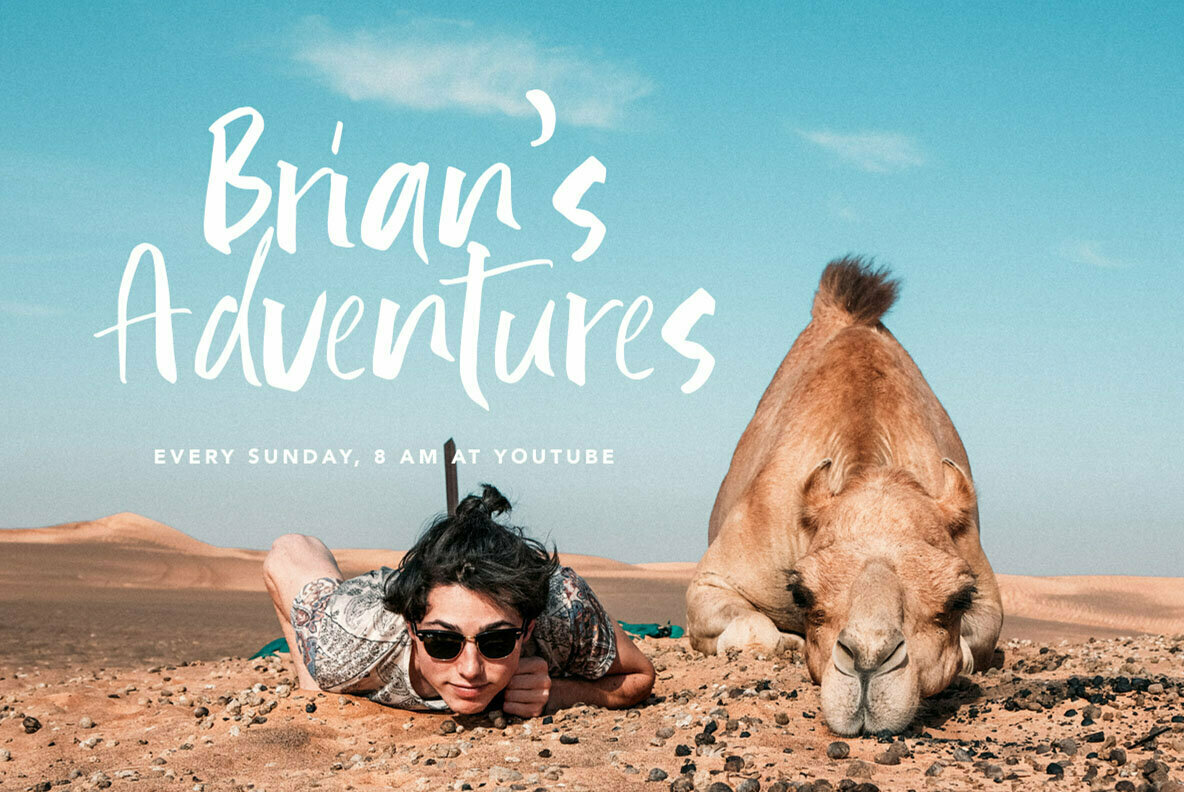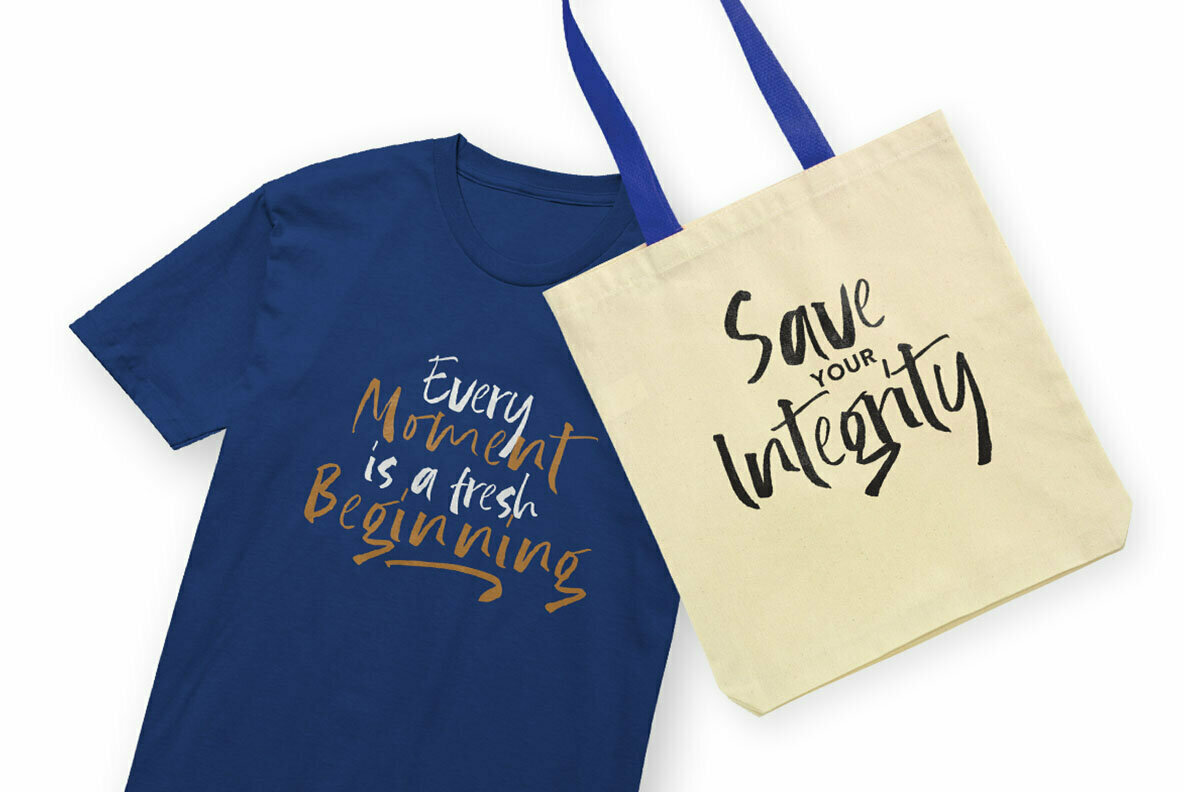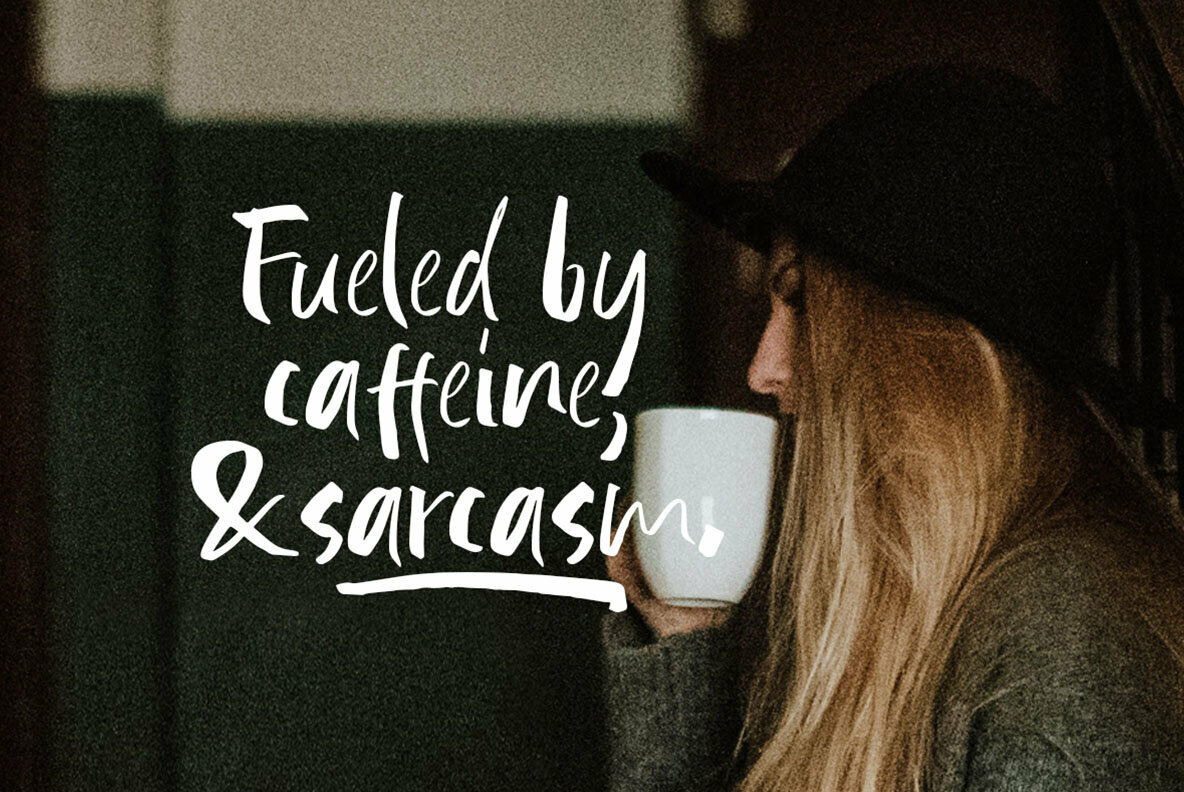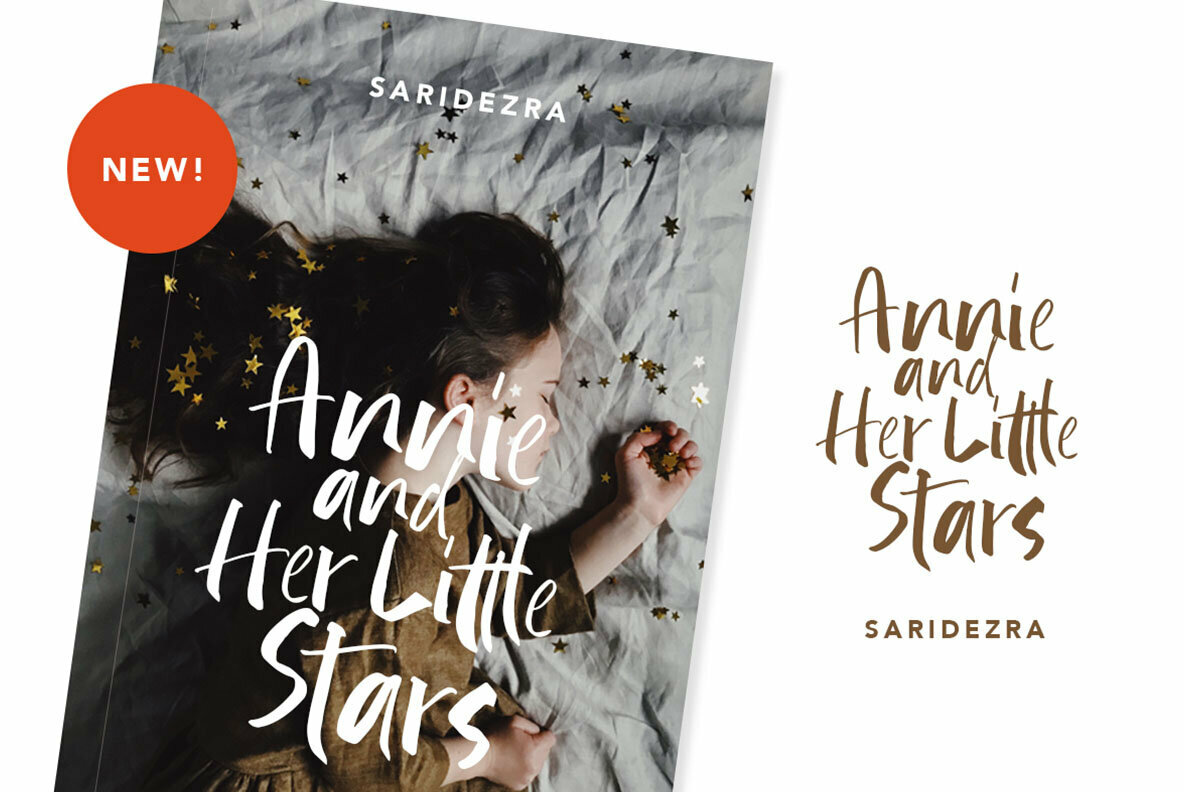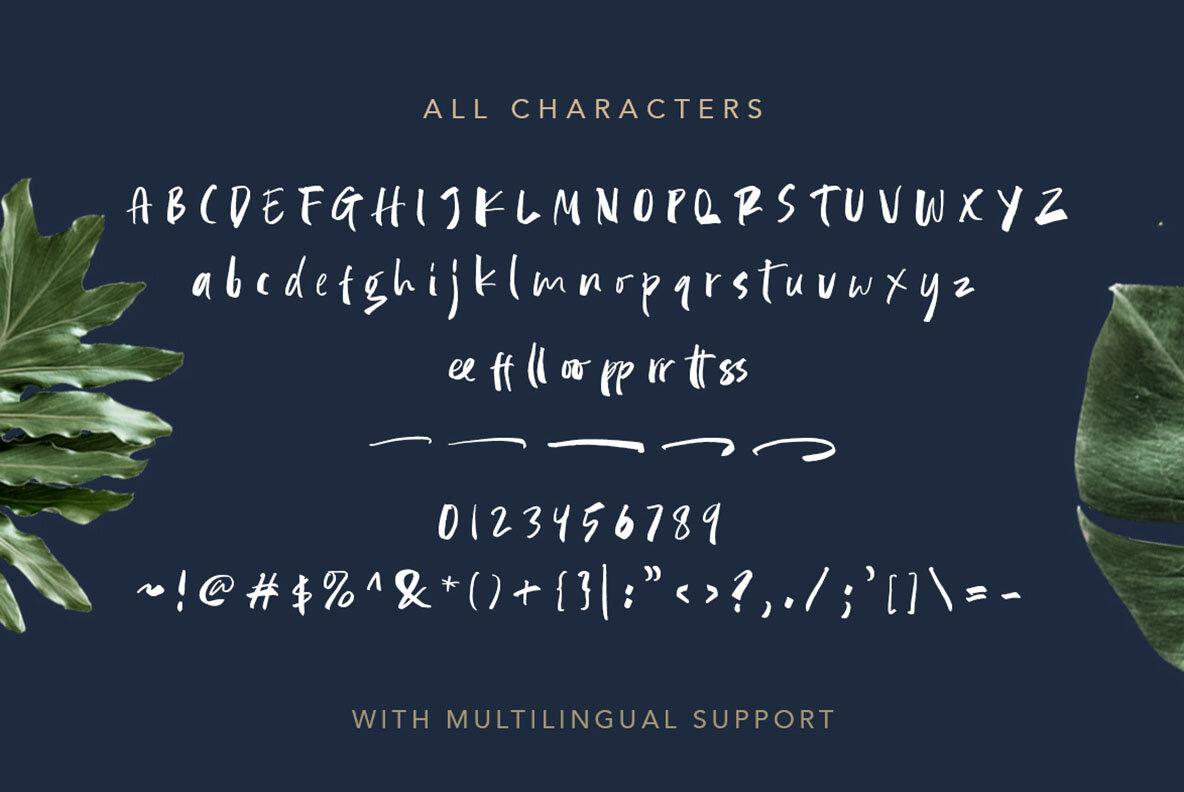
Beautiful Weakness Font
Beautiful Weakness
Beautiful Weakness offers an organic, free-spirited touch that infuses your projects with a unique flair. Crafted with a brush style, it brings a natural essence to your creative endeavors, making each piece resonate with authenticity.Beautiful Weakness: An Expressive Handwritten Font